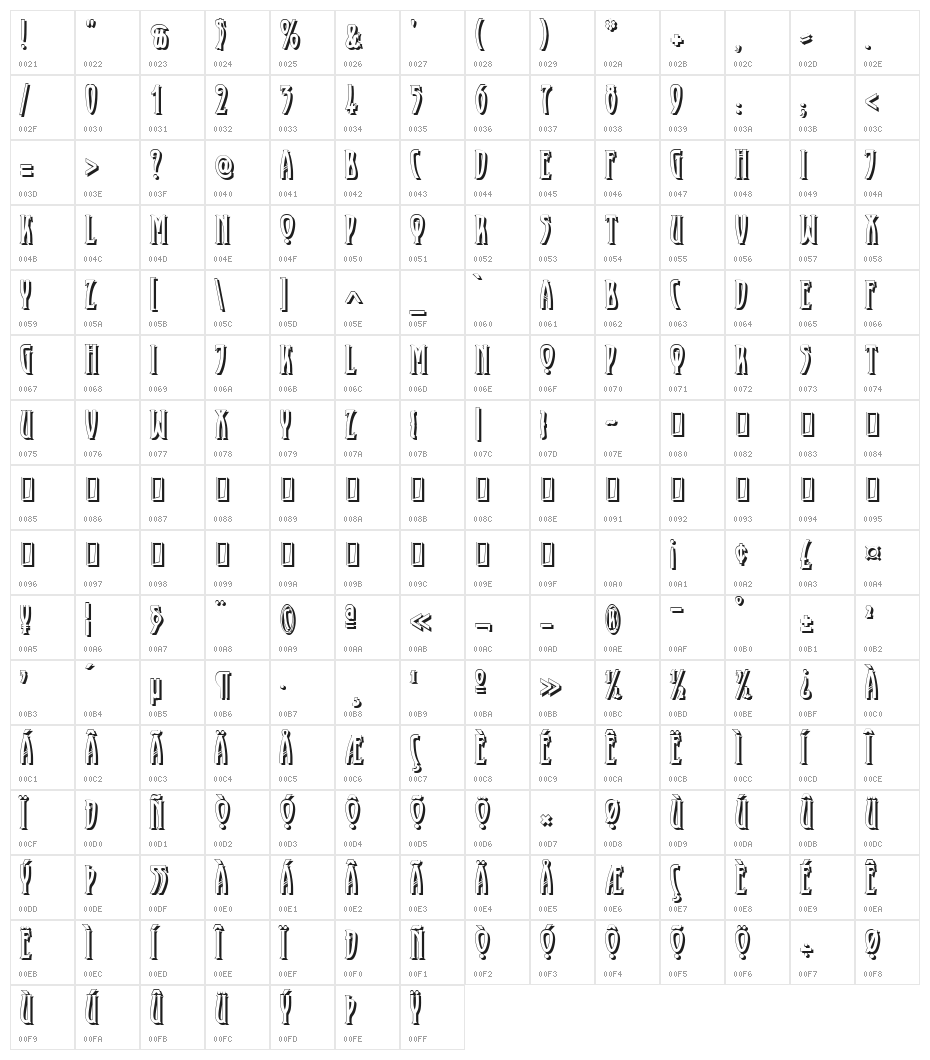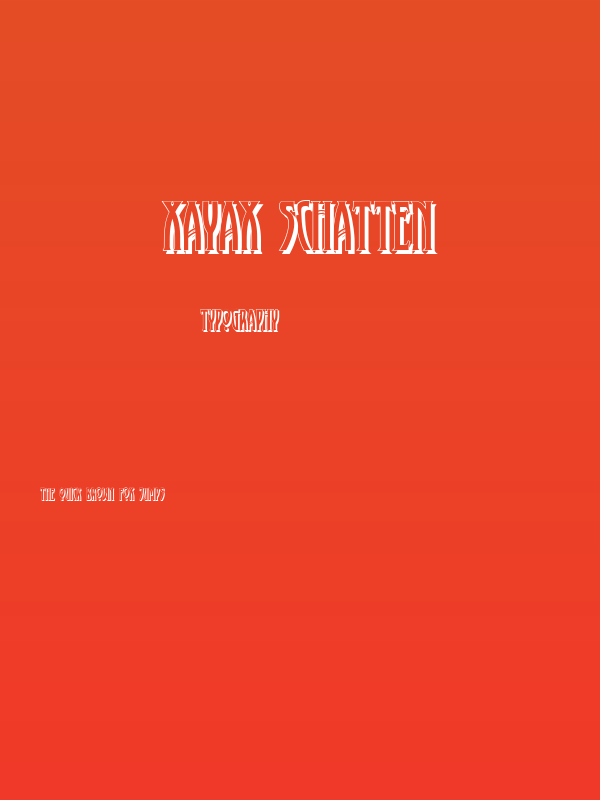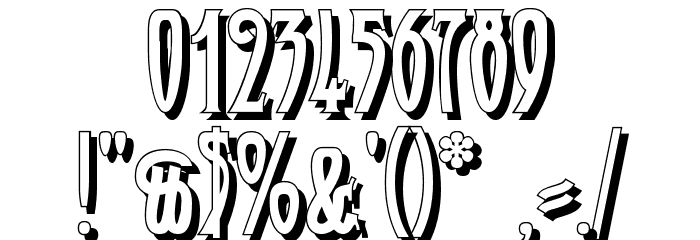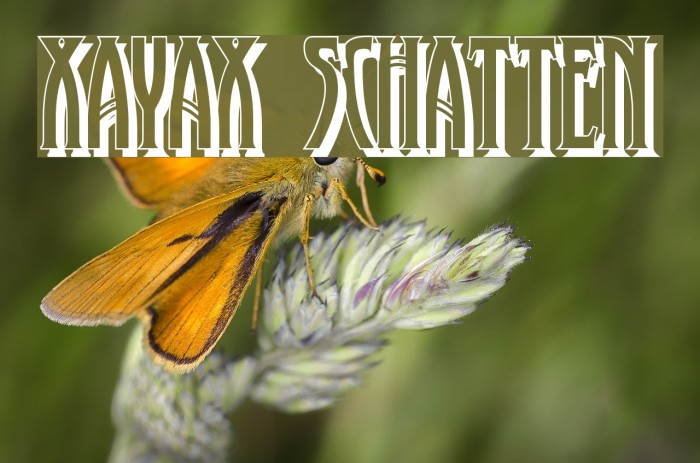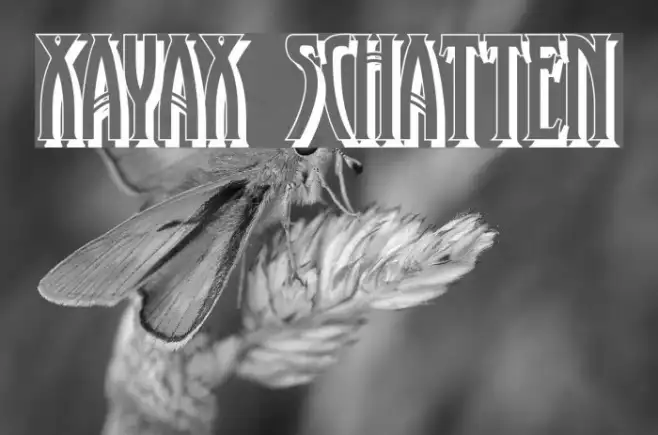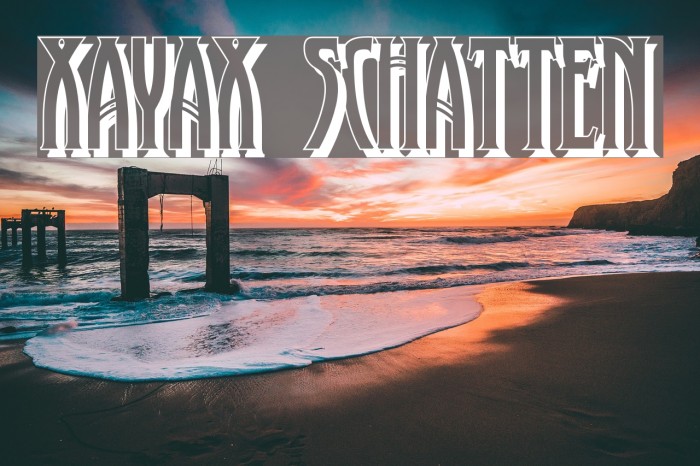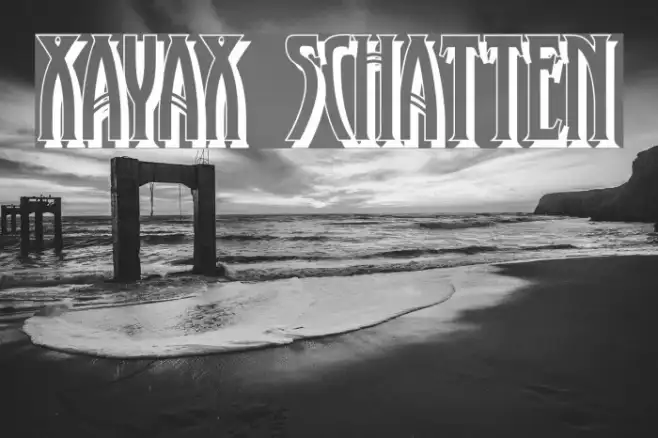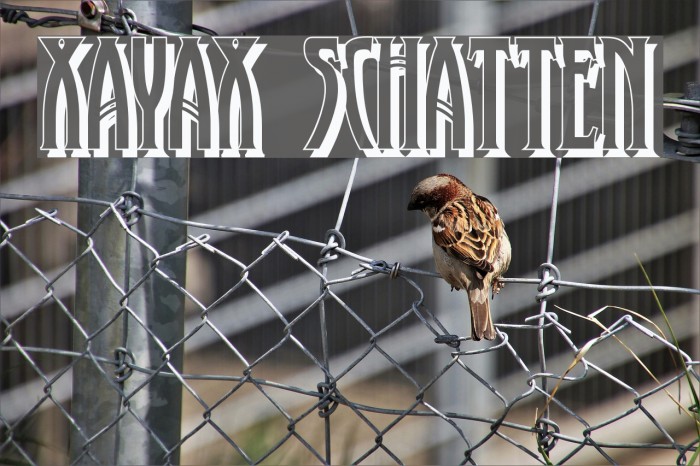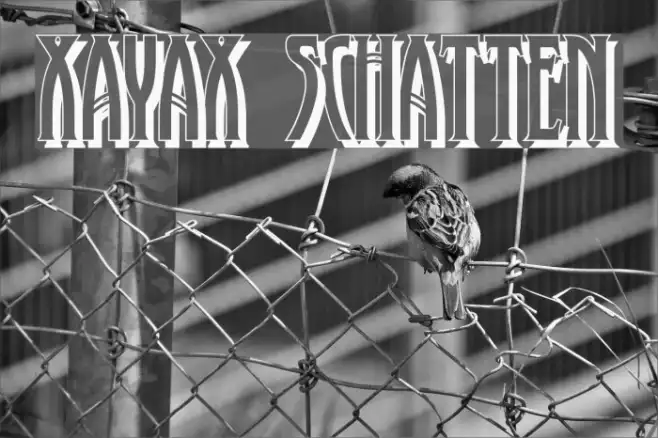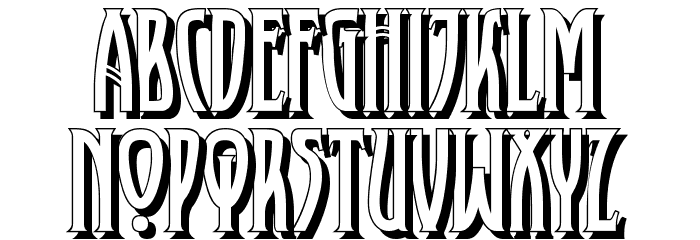
XAyax Schatten Font
XAyax Schatten Description
This font features a bold, decorative style with a shadow effect that gives it a three-dimensional appearance. The characters are tall and narrow, with sharp, angular serifs that add a dramatic flair. The uppercase letters are particularly striking, with a strong vertical emphasis and intricate detailing. The lowercase letters maintain the same boldness and style, ensuring consistency throughout. Numbers and special characters are designed to match the overall aesthetic, making this font suitable for eye-catching designs.